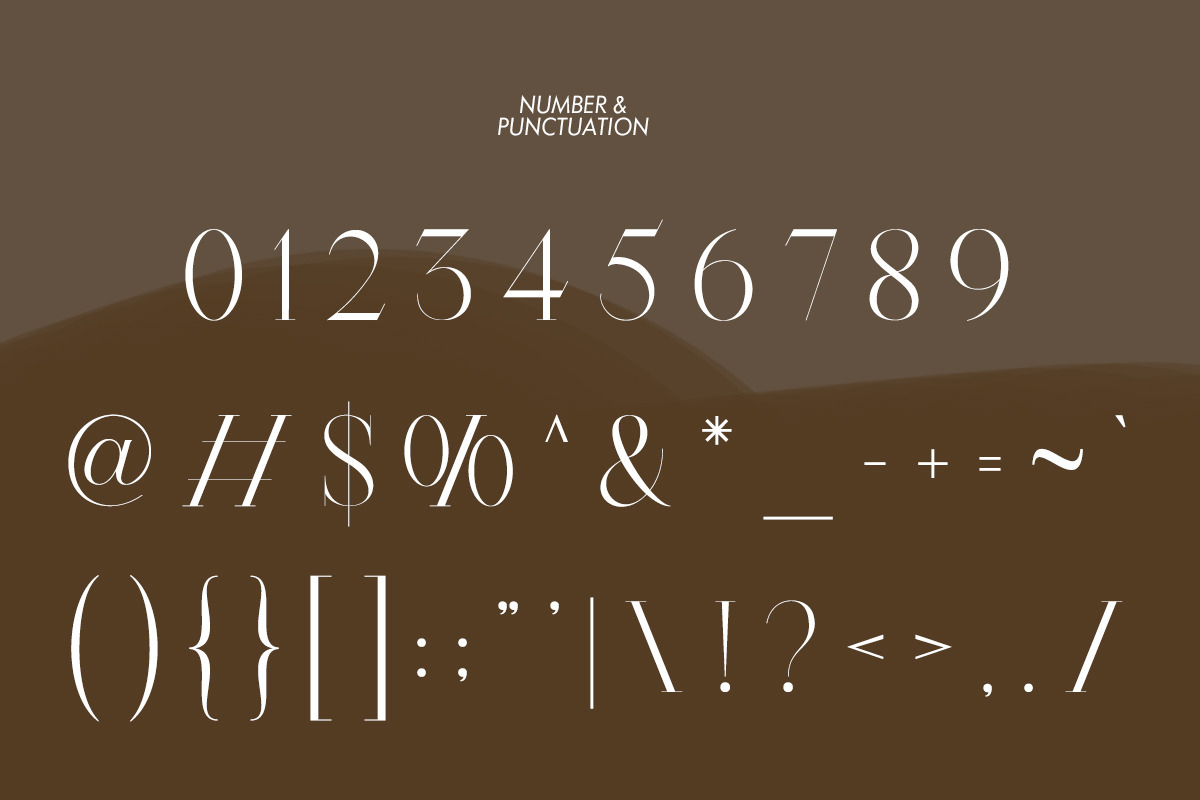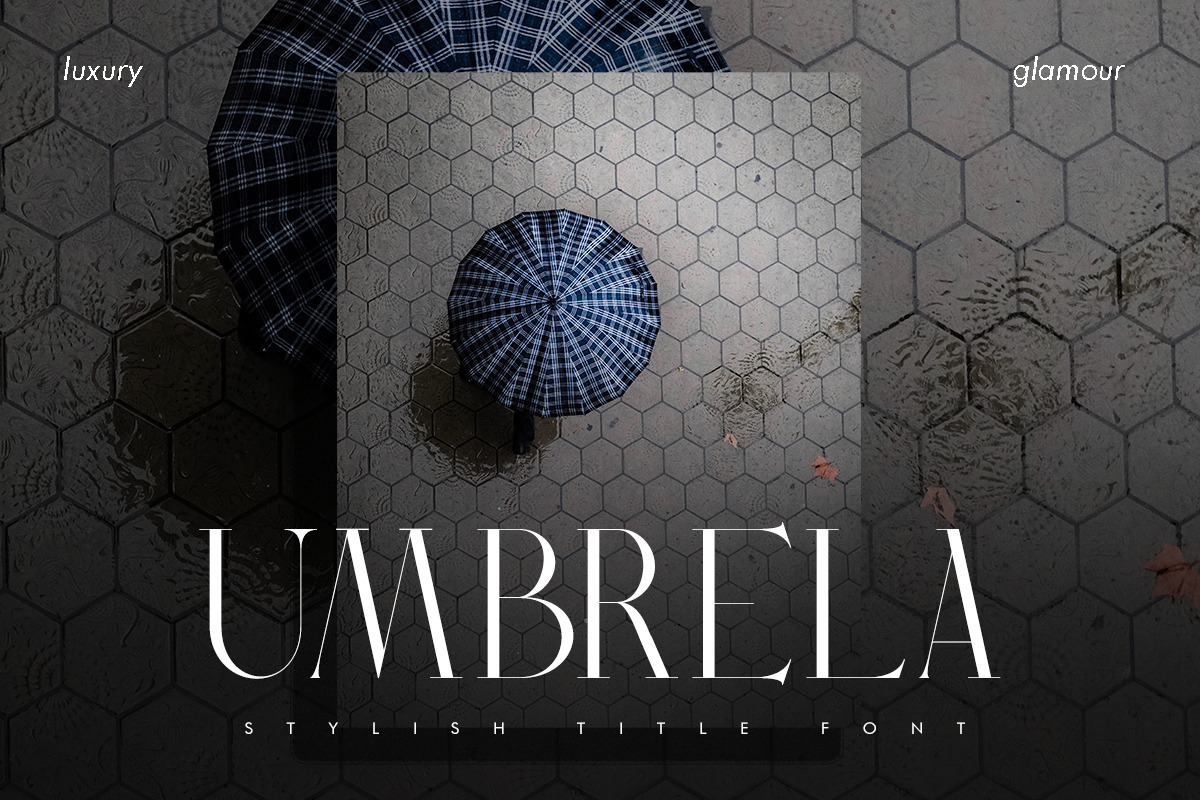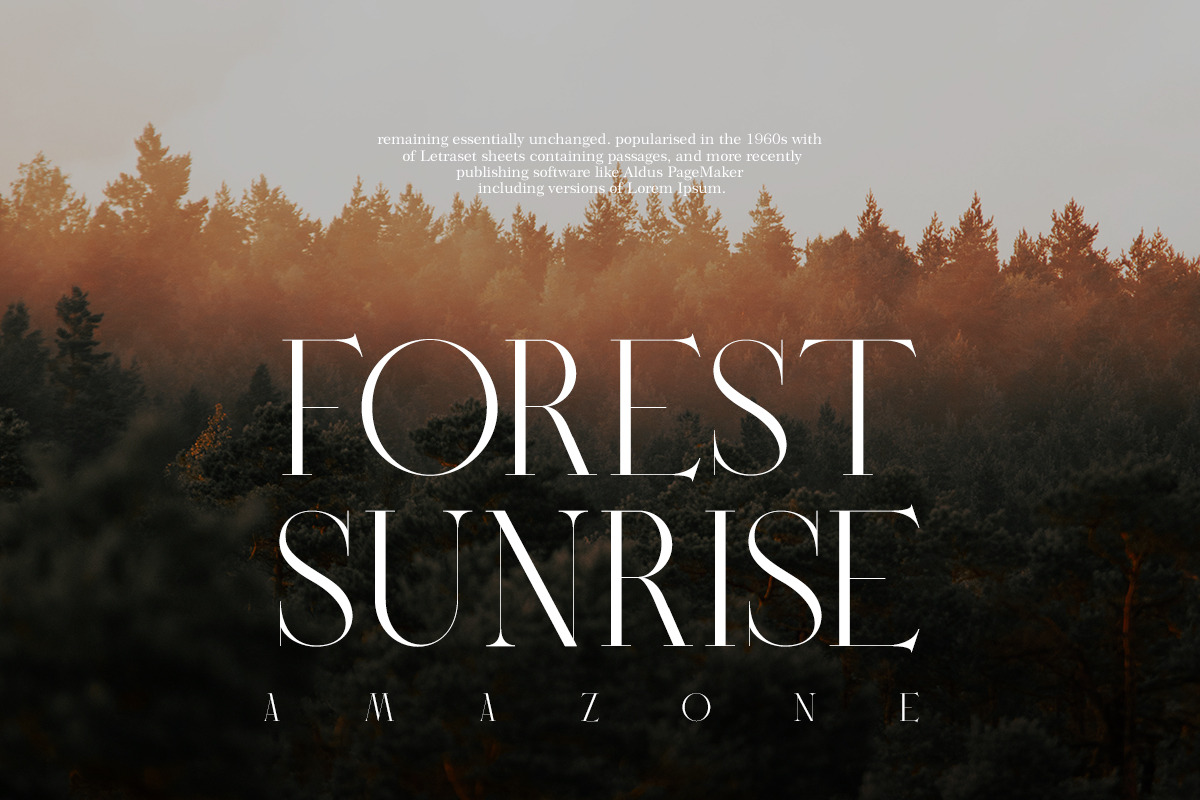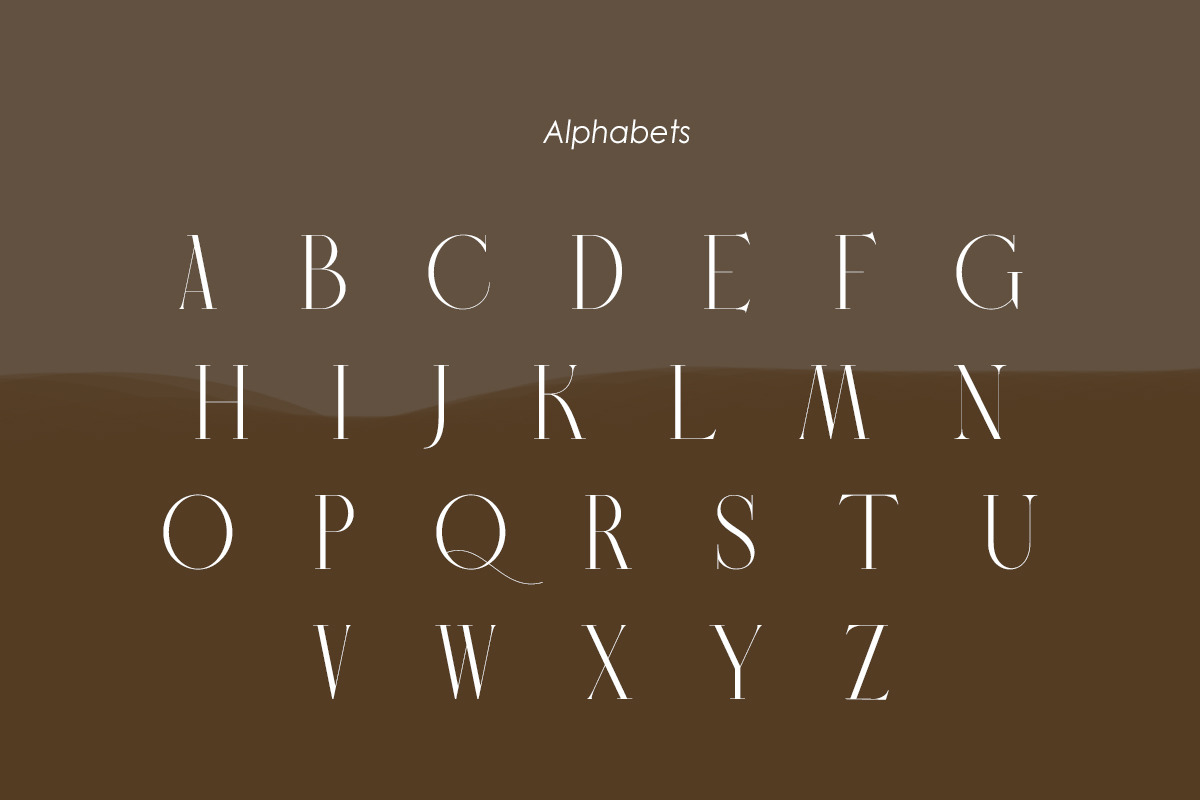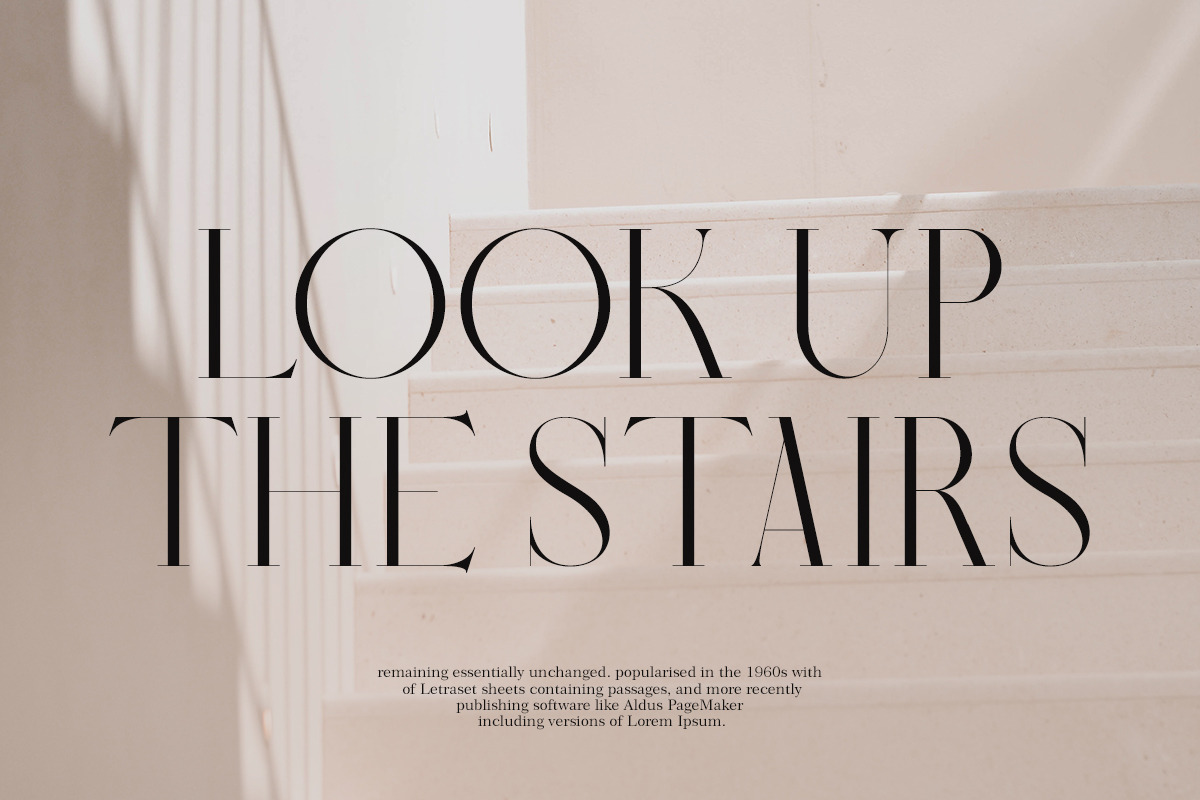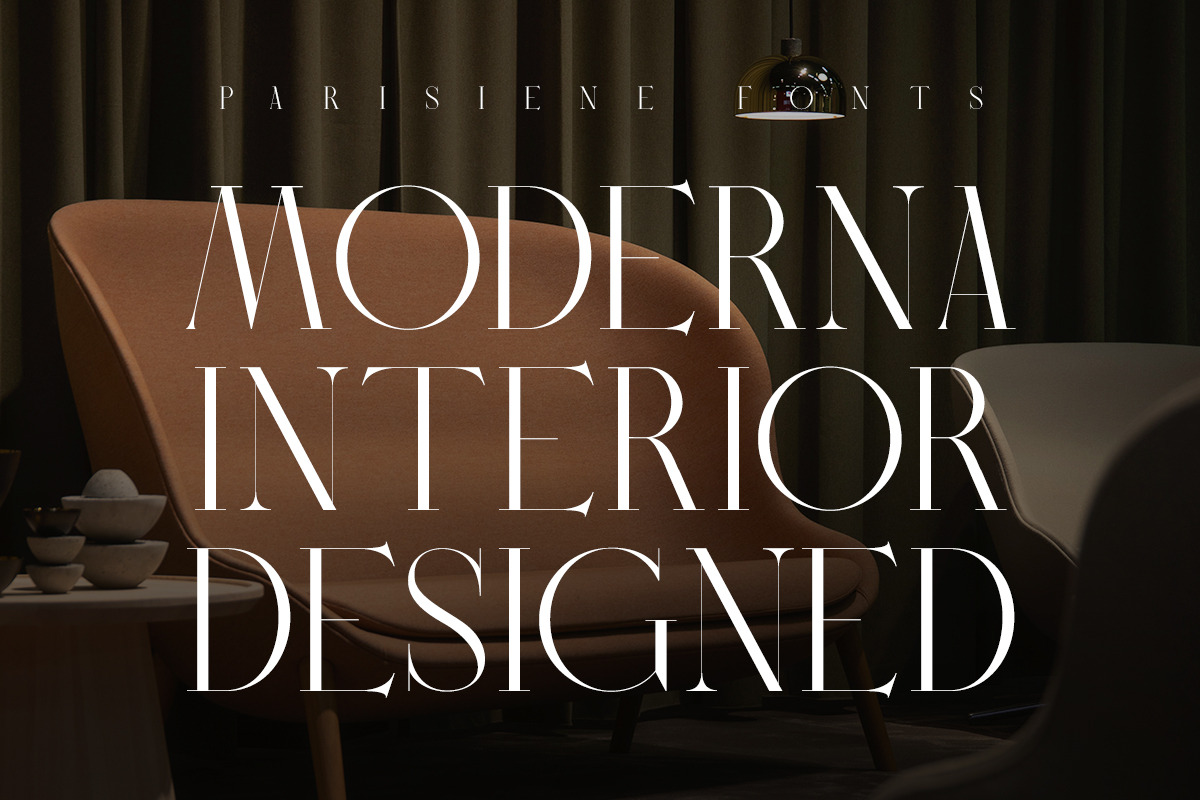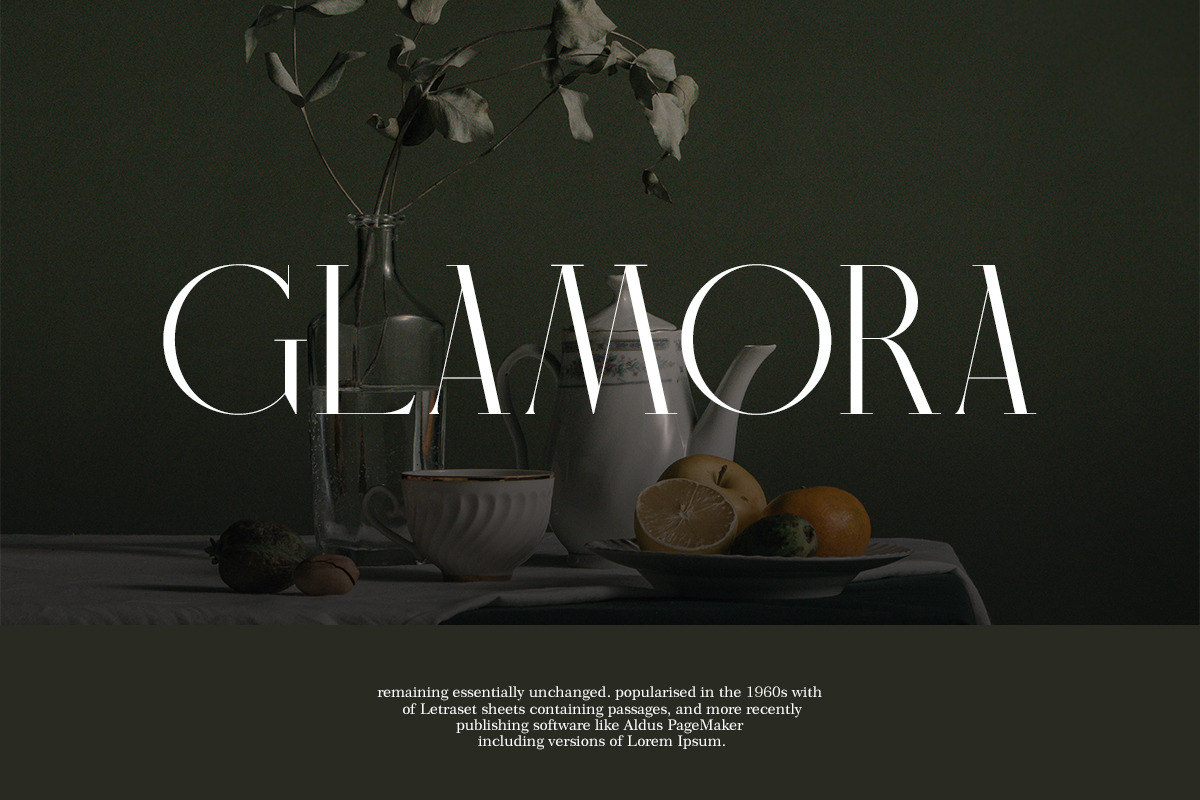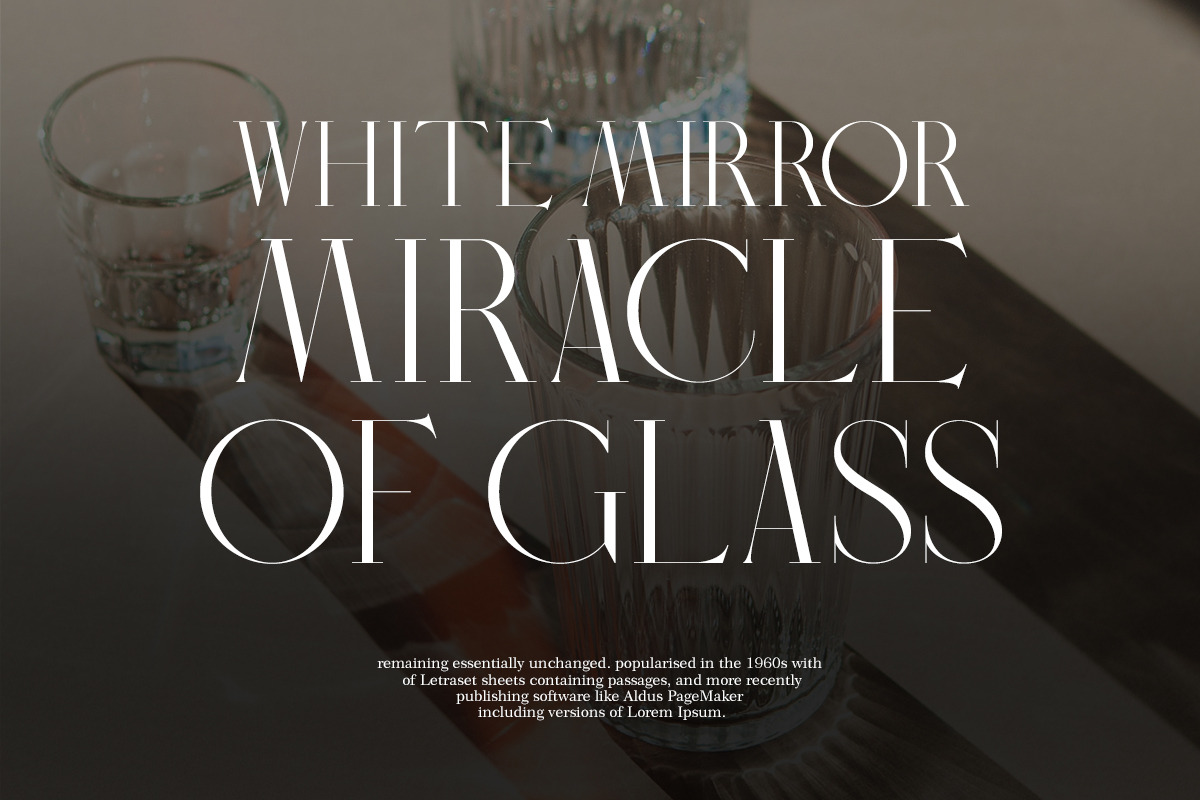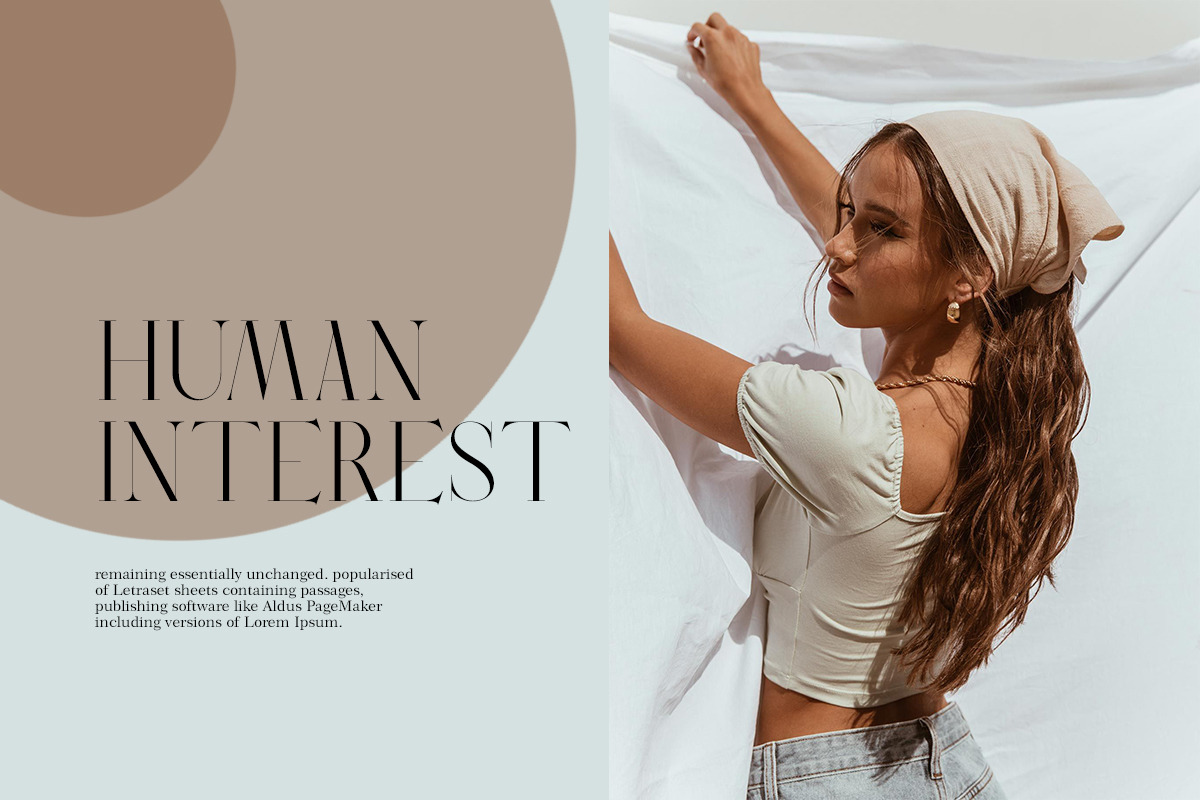
Parisiene | Modern Serif
Parisiene fonts includes uppercase letters, numerals, a large range of punctuation. Serif font with modern stylish style. Created for poster, web design, branding, illustrations, badges and some other works.